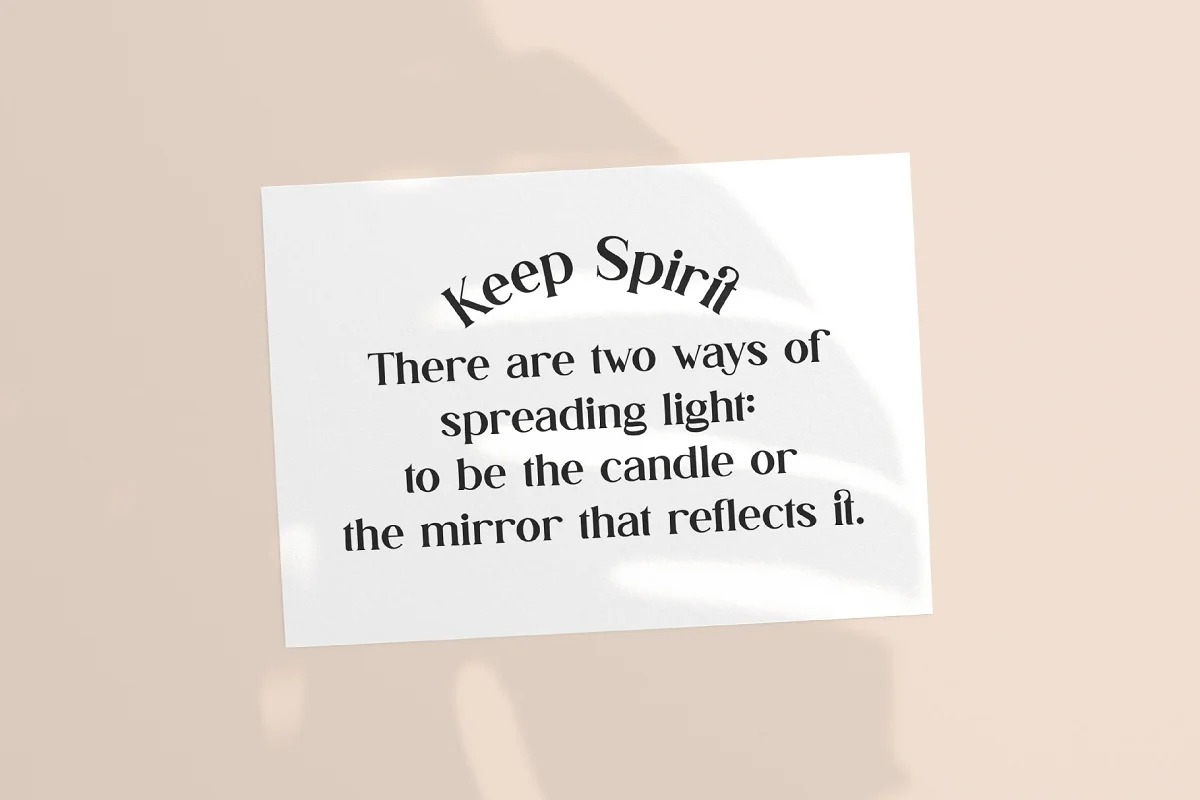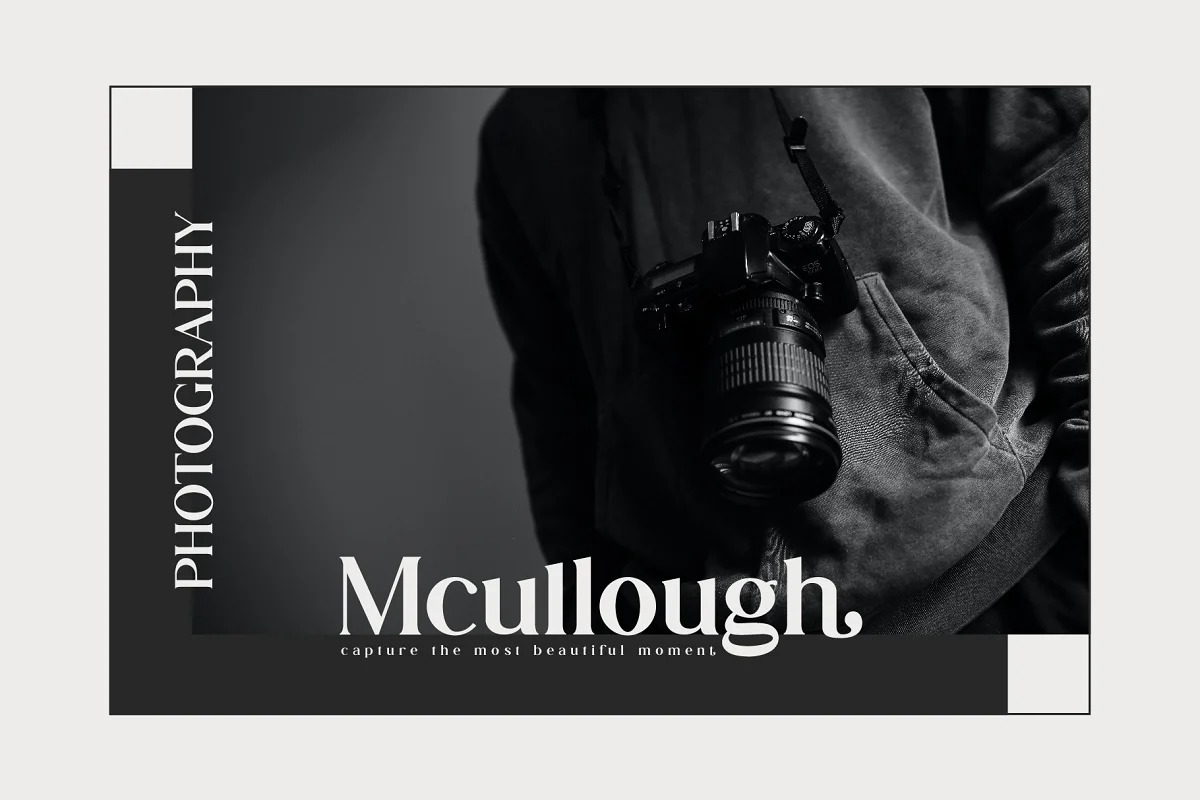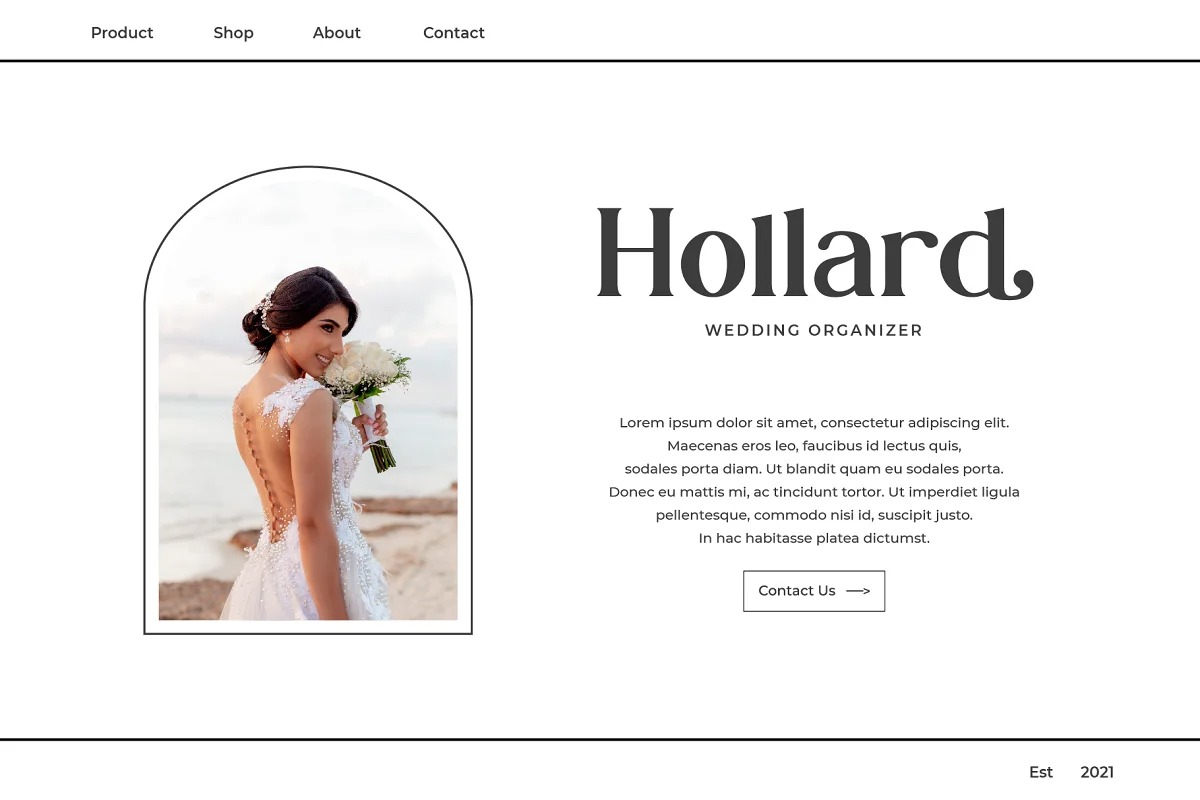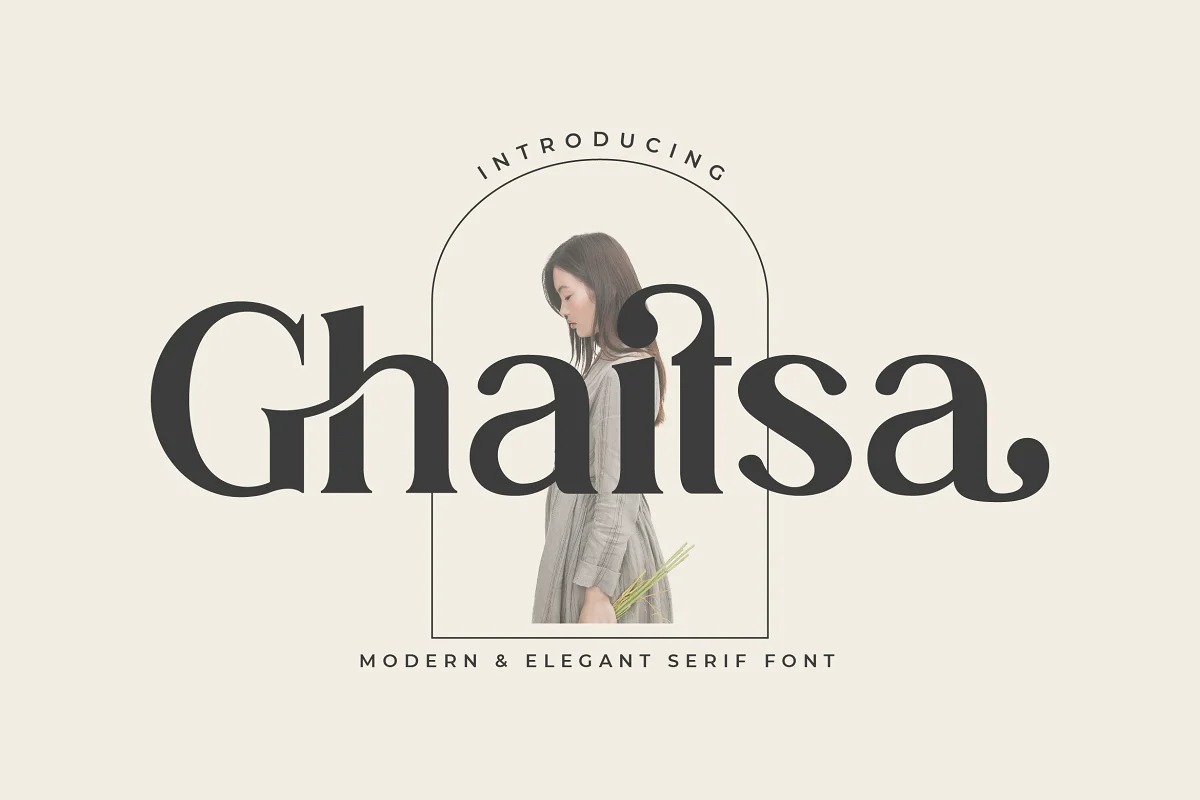
Ghaitsa Font
Ghaitsa Serif Font is a retro serif with a humanist touch. With its good readability, Analogue is perfect for both displays as well as body text. Ghaitsa Stylish Ligature Typeface, inspired by the famous minimalist logo perfect for the purposes of designing templates, brochures, videos, advertising branding, logos and more.